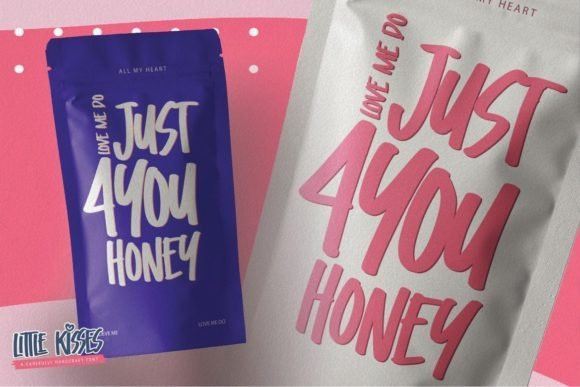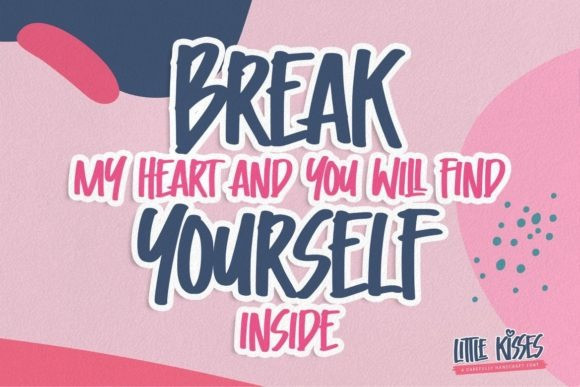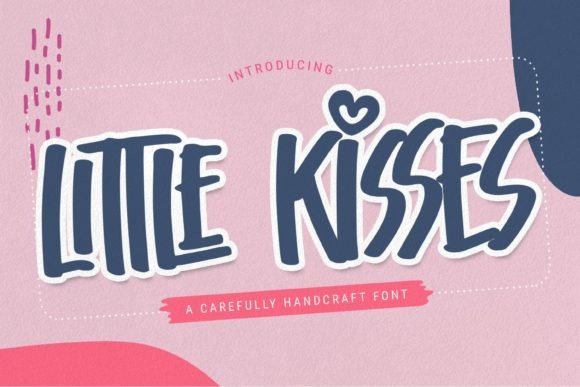
Little Kisses Font
Little Kisses Display Font is a clean and natural display font. It is relaxed and features uniquely shaped letters, and as a result, it will easily match a wide range of creations that require a distinct touch.